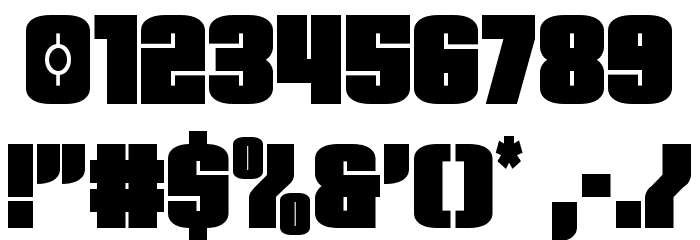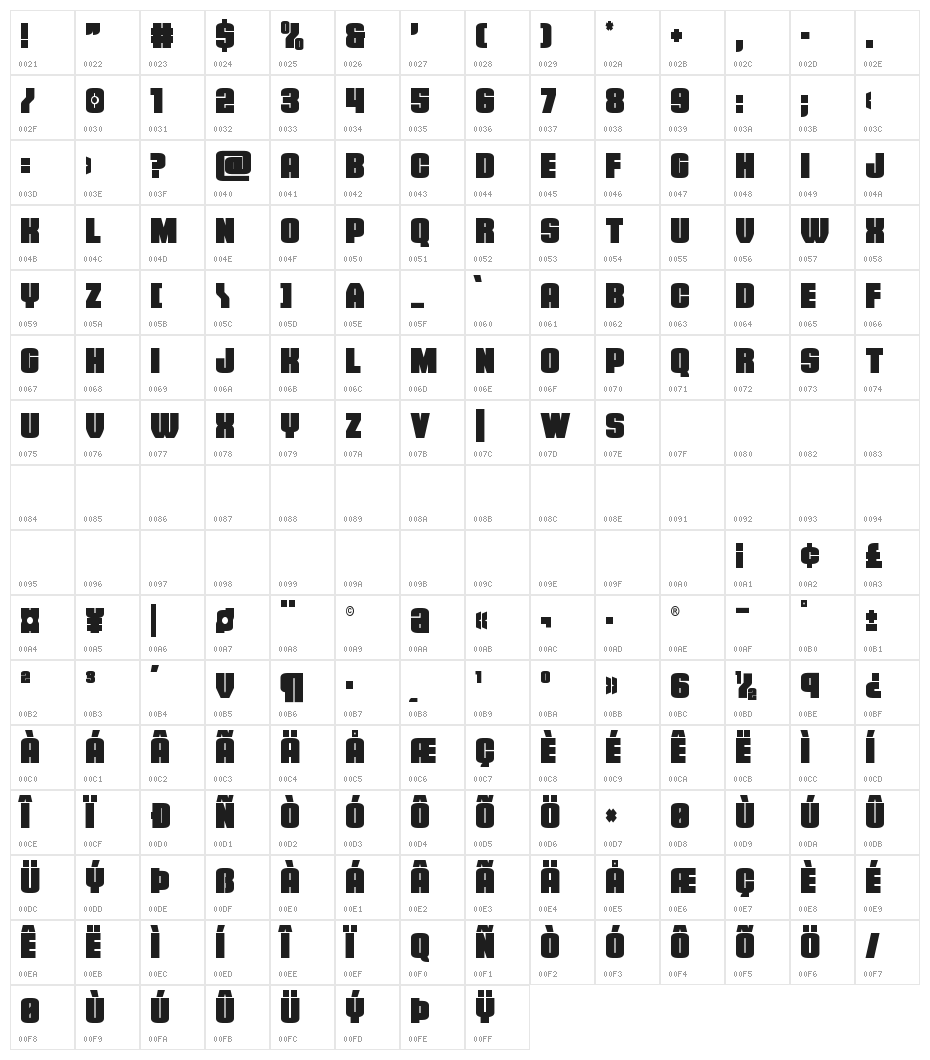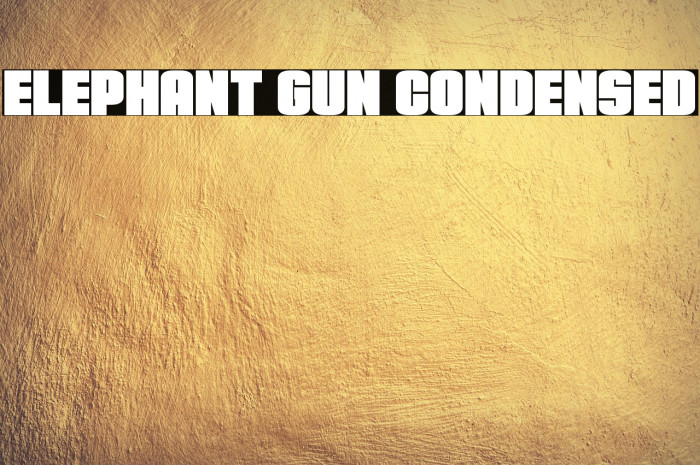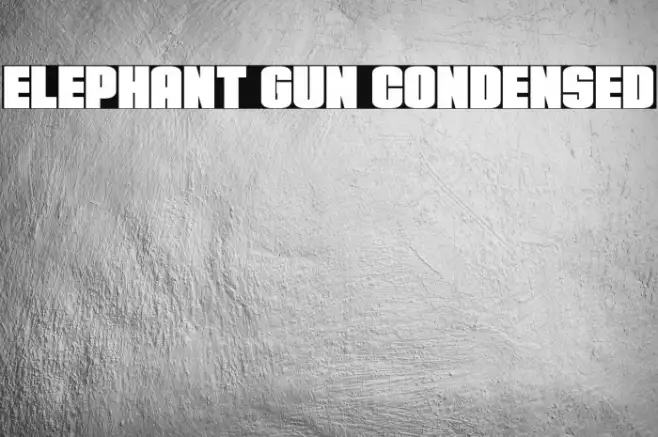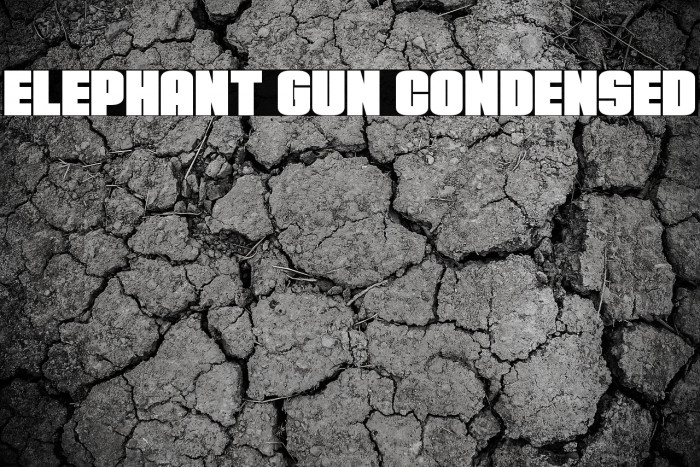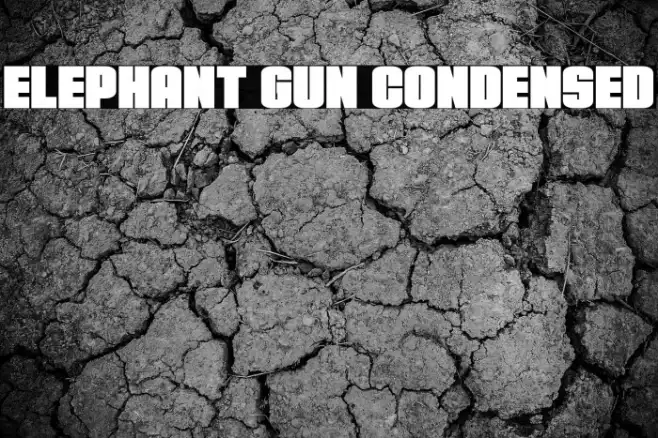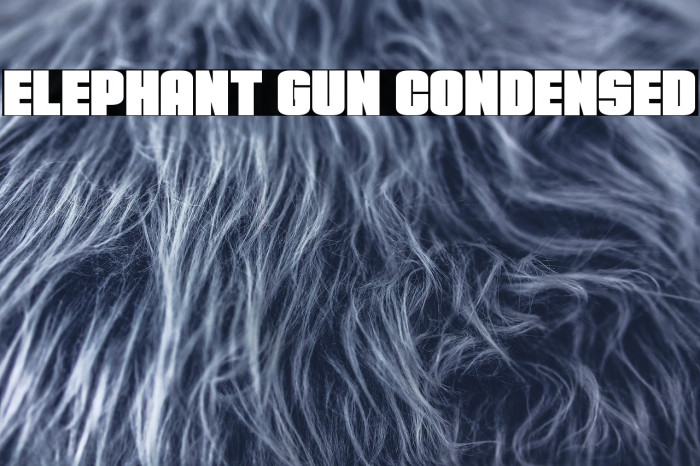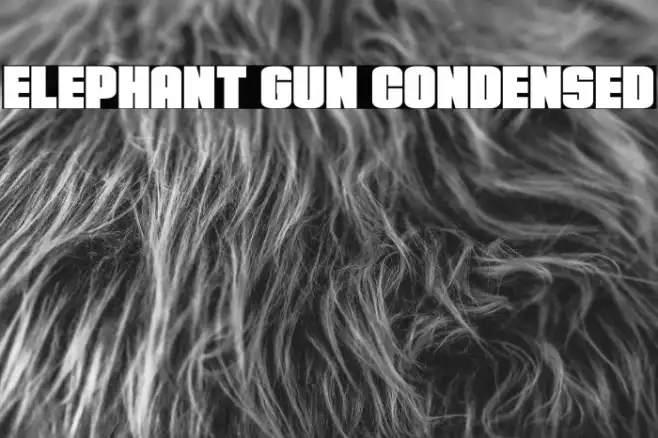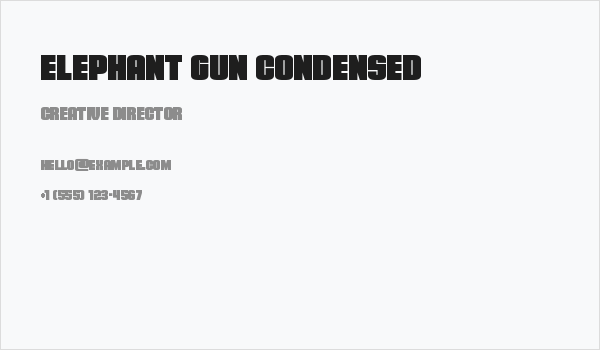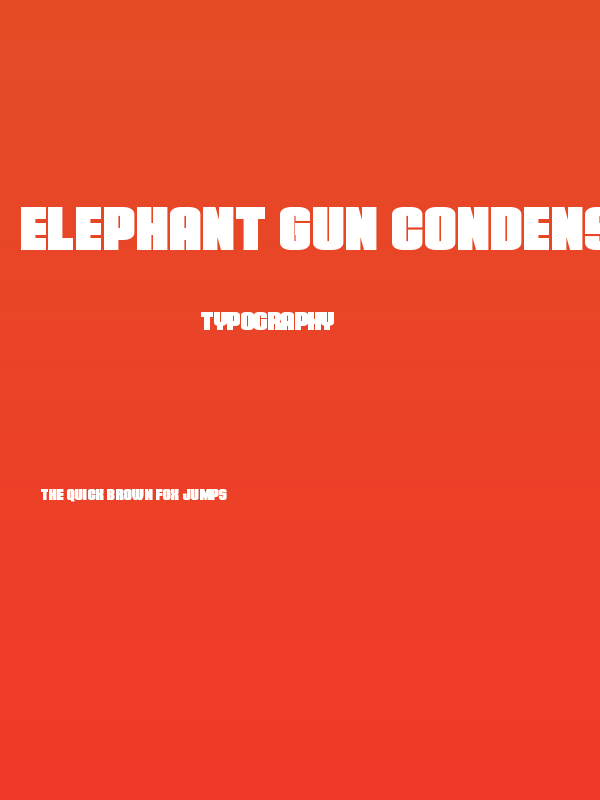
Elephant Gun Condensed Font
Elephant Gun Condensed Description
This font features a bold and impactful design with thick, blocky letterforms that command attention. The condensed style allows for maximum use of space, making it ideal for headlines and titles. The characters are uniformly wide, with minimal spacing between them, enhancing the compact appearance. The high contrast between the thick strokes and the negative space creates a striking visual effect. The font's strong geometric shapes and solid structure give it a modern and assertive look, suitable for projects that require a powerful and confident typeface.
| Proposed Projects | Ideal for posters, banners, advertising, and any design needing a strong visual impact. |